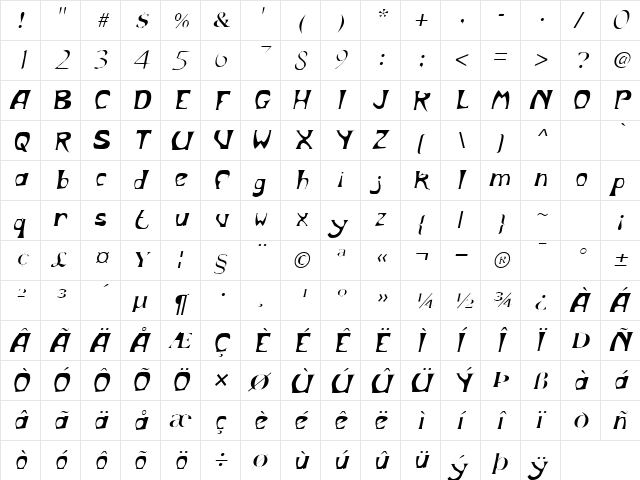
PeppertreeSSK Italic
Design Context for PeppertreeSSK Typeface
PeppertreeSSK is a composed and adaptable typeface that performs quietly and consistently across a wide range of design contexts. Its italic angle brings a sense of urgency and motion to the letterforms.
Pro Tip: Use PeppertreeSSK for emphasis, pull quotes, and subheadings where its slanted energy can add rhythm to the layout.